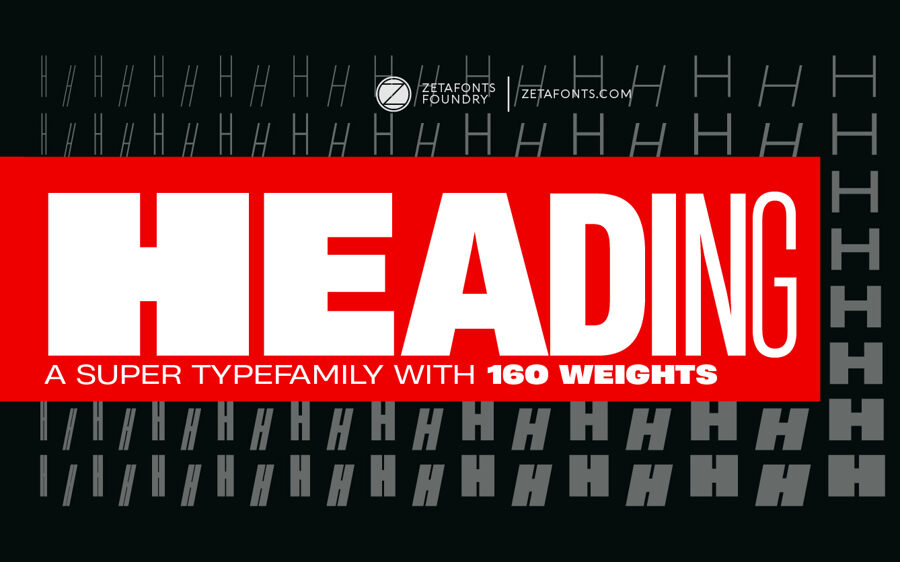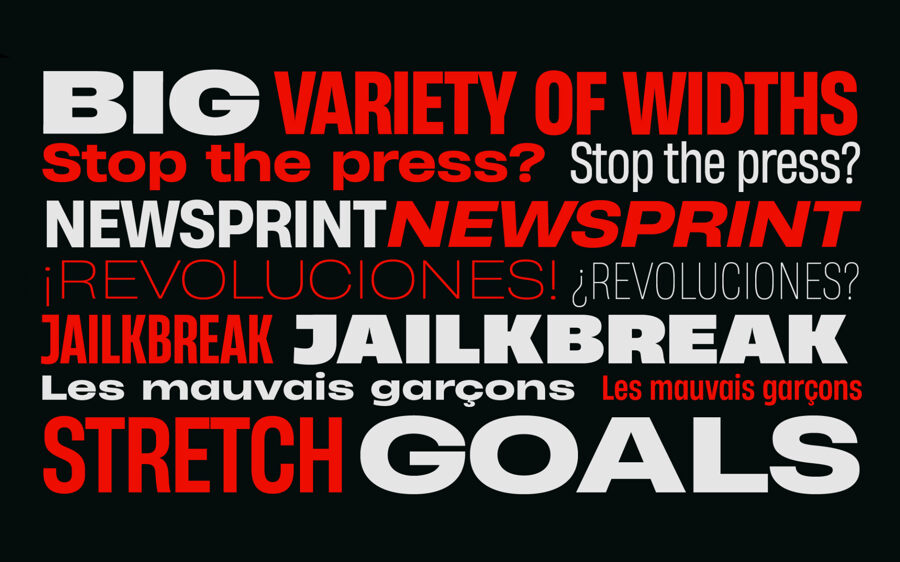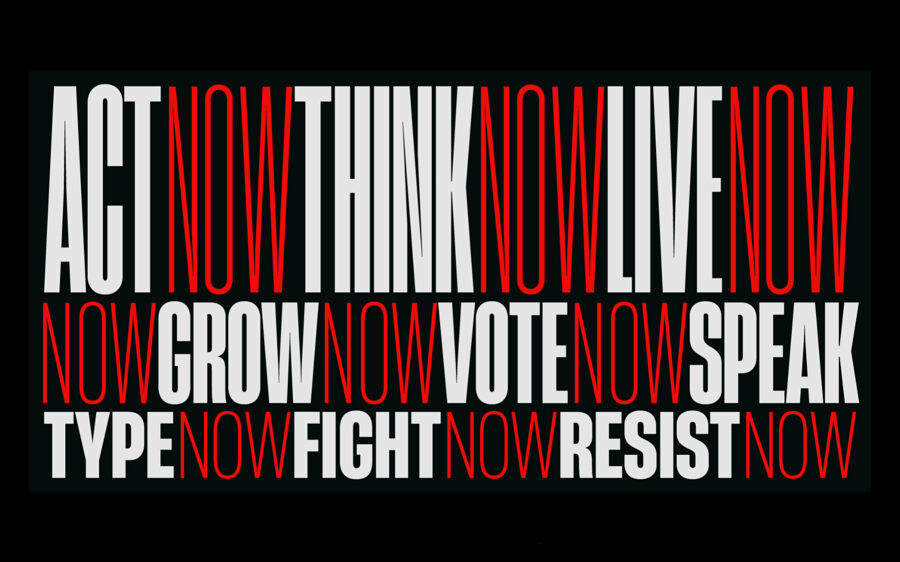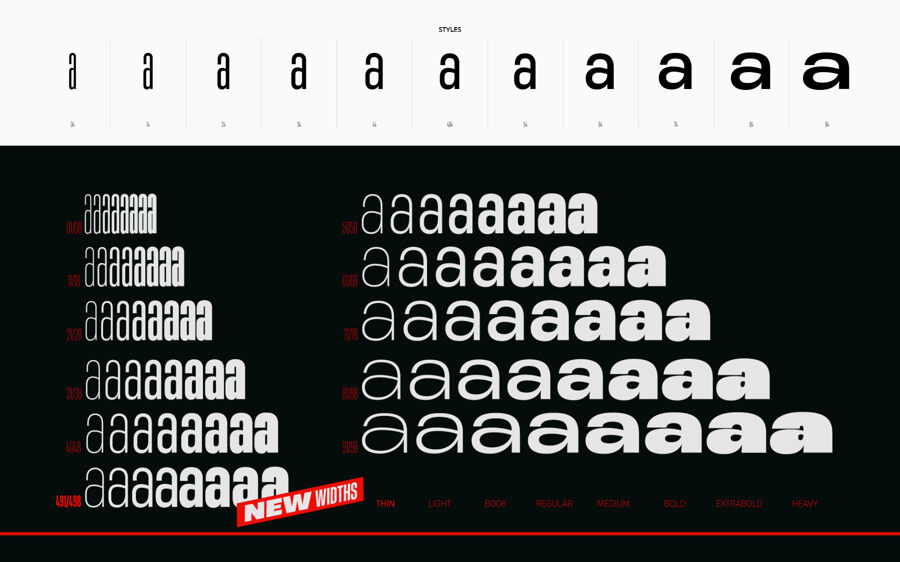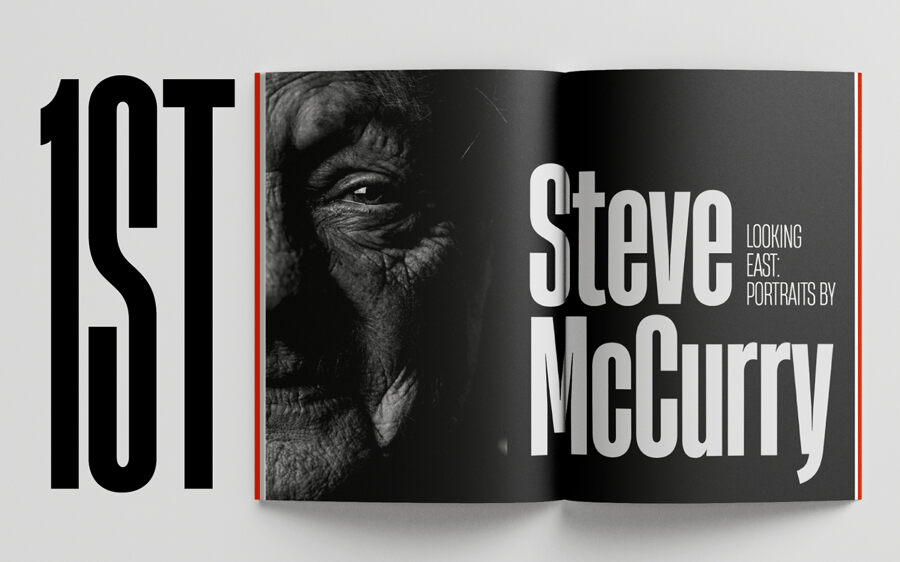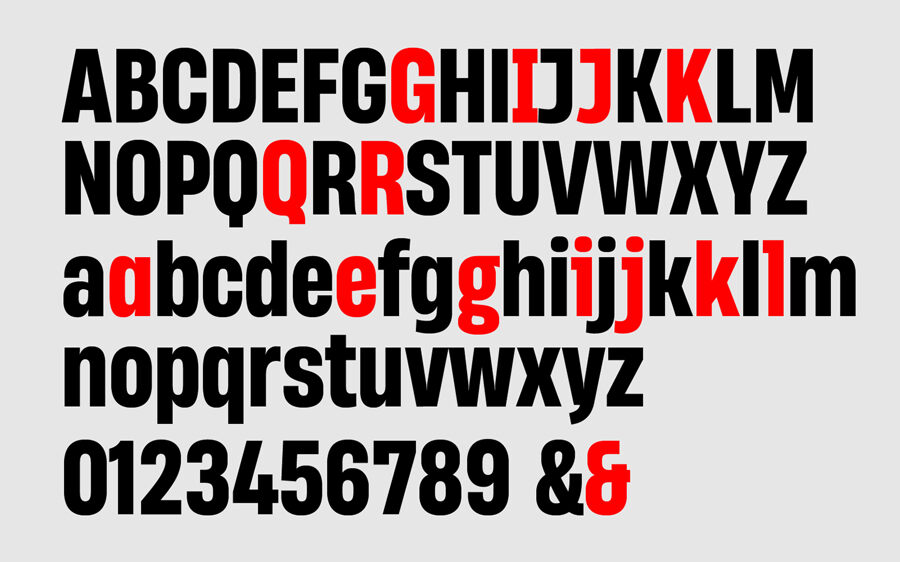
Heading Now Font Family
Heading Now is a grotesque sans super-family developed by Cosimo Lorenzo Pancini and Andrea Tartarelli after the original design by Francesco Canovaro. The width range is built around 11 different widths, with a big emphasis on ultra-narrow weights.
In these “tall” weights the letterforms have straight sides creating a distinctive vertical texture thanks to the carefully balanced relationship between inner and outer spaces in glyphs. The “industrial grotesque” feel of these letterforms is kept in the first five widhts, but as the proportions get wider, the shapes of the letters follow a more traditional grotesque design, with rounded sides.